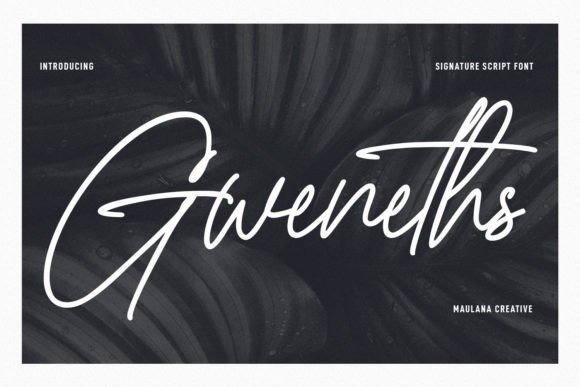
Discover the Magic of Gweneths Font
Have you ever sat in front of your computer, staring at a blank page, desperately searching for the perfect font to bring your creative vision to life? The blank page can be daunting, but the excitement of bringing a new project to life is exhilarating. Whether you’re a seasoned designer or a DIY enthusiast, the right font can make all the difference.
Enter Gweneths Font, a magical script font carefully crafted with a touch of elegance. This enchanting font is perfect for Instagram, wedding invitations, or any project where you want to add a touch of sophistication. As a designer, you’ll appreciate the versatility and uniqueness of Gweneths Font, which can elevate any design from ordinary to extraordinary.
Gweneth’s Font Key Features
- Font Family: Gweneth’s Font is a custom-designed script font.
- Unique Characteristics: Features a flowing, handwritten style with unique letter connections and subtle flourishes.
- Character Set: Includes a wide range of characters, including Latin, Cyrillic, and Greek alphabets, as well as punctuation and symbols.
- Kerning and Ligatures: Includes custom kerning pairs and ligatures to ensure smooth text flow and visual appeal.
Gweneths Font Review
Overall, I’m really impressed with Gweneths Font. It’s a beautiful, elegant script font that can add a touch of sophistication to any design project. ✨ The font’s flowing lines and subtle flourishes make it perfect for creating a sense of luxury and refinement.
One of the things that stands out about Gweneths Font is its versatility. It can be used for a wide range of applications, from branding and advertising to wedding invitations and fine art. ✨ The font’s elegant feel makes it perfect for creating a sense of drama and romance, while its flowing lines also make it well-suited for more modern and minimalist designs.
- Beautiful, elegant script design ✨
- Perfect for creating a sense of luxury and refinement
- Very versatile, suitable for a wide range of applications
- Looks great in both modern and traditional designs
- May be too ornate for some designs ⚠️
- Lacks a bold weight, which can make it difficult to use for headings and titles
- May require some adjustment to get the spacing and alignment just right
Overall, I’m really happy with Gweneths Font. While it may have some limitations, its beauty and versatility make it a great addition to any designer’s toolkit.
Gweneths Font is ideal for creative and artistic designs, such as:
- Book covers and novel designs.
- Graphic novels and comics.
For the most effective use of Gweneths Font, keep the following tips in mind:
- Use the font in moderation to avoid overwhelming the design.
- Pair the font with complementary colors and textures.
Alternatives to Gweneths Font